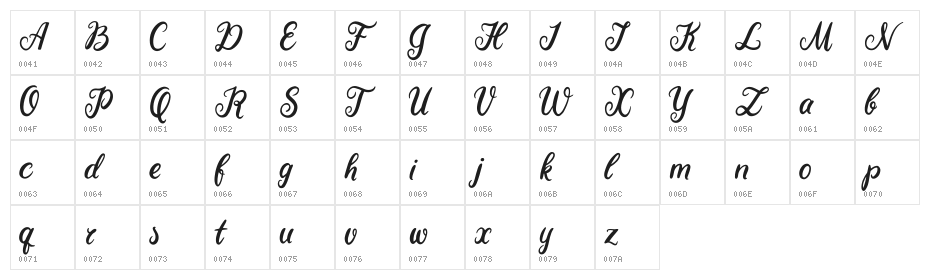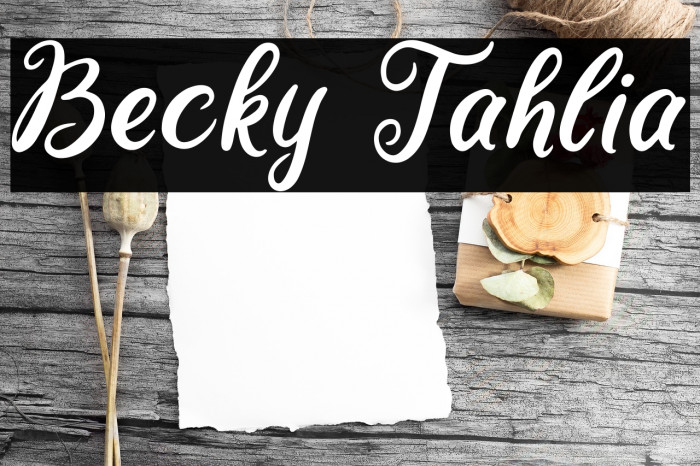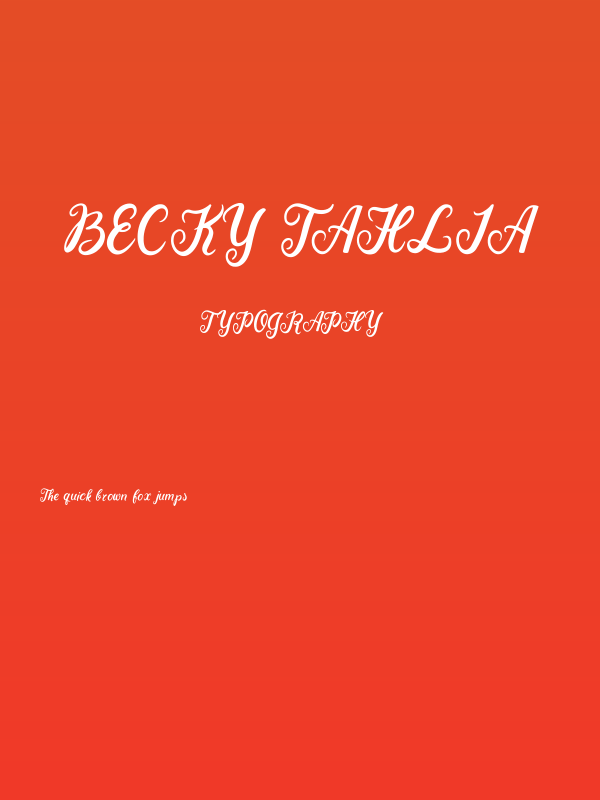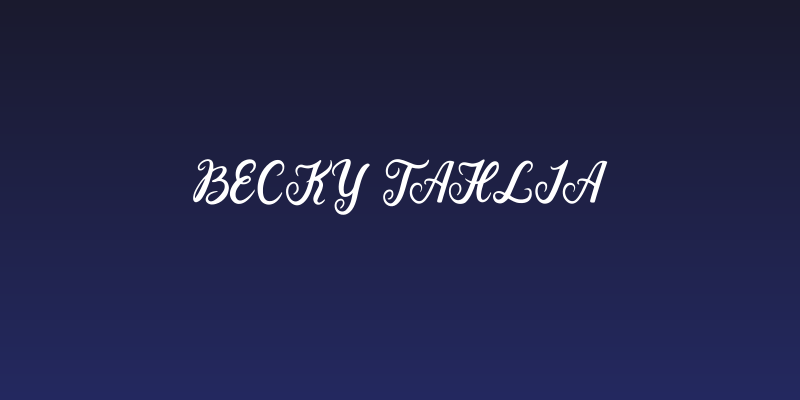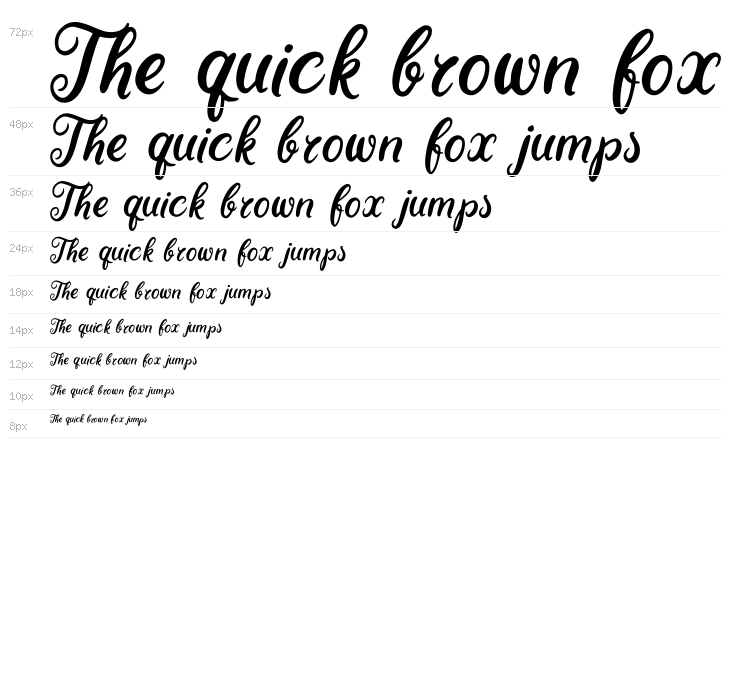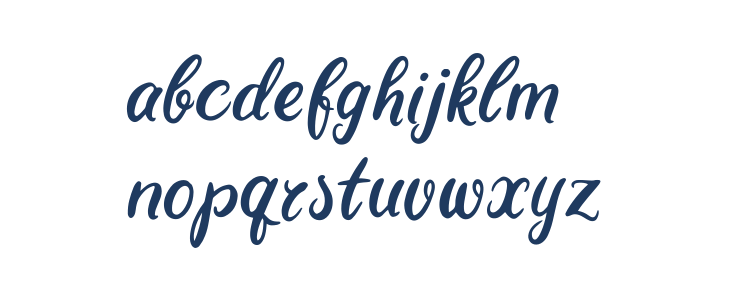
Becky Tahlia Font
Becky Tahlia Description
This font features a flowing, cursive style with elegant, looping strokes that give it a sophisticated and artistic appearance. The uppercase letters are characterized by their ornate swirls and flourishes, while the lowercase letters maintain a more streamlined yet still decorative form. The overall design is consistent, with a harmonious balance between the thick and thin strokes, creating a medium contrast. This font exudes a sense of grace and fluidity, making it suitable for projects that require a touch of elegance and creativity.
| Proposed Projects | Ideal for wedding invitations, greeting cards, branding, and elegant logo designs. |